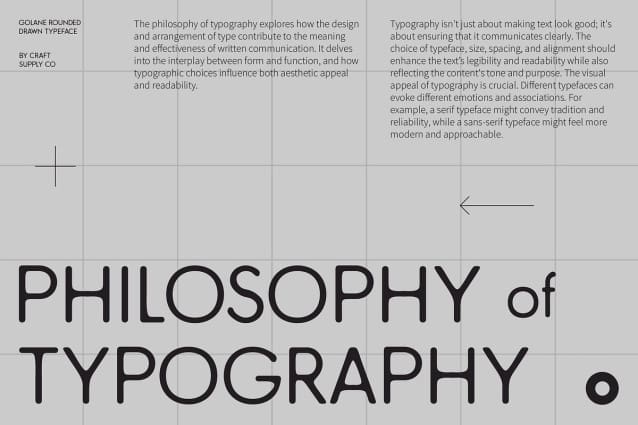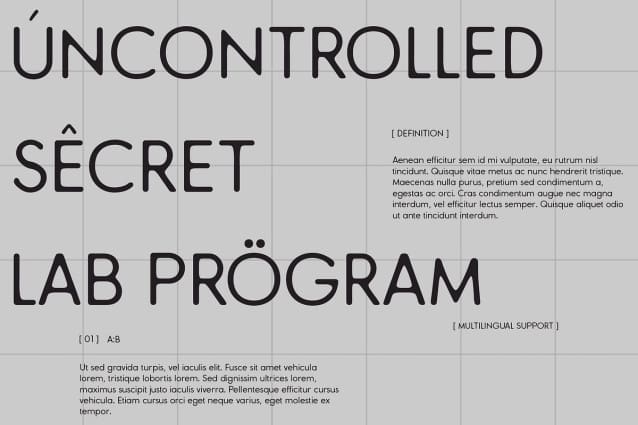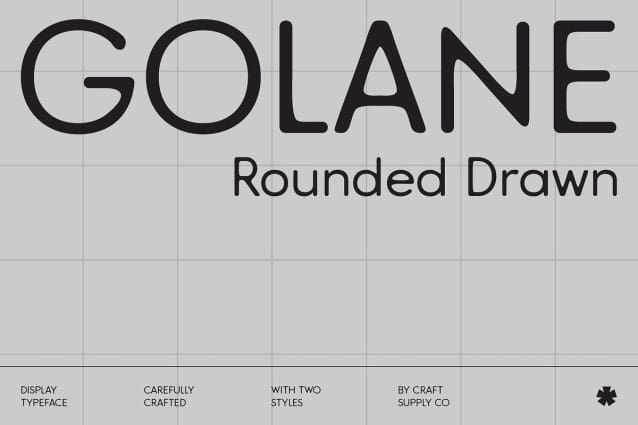
Golane Rounded Drawn Font
Golane Rounded Drawn – Modern Sans Serif with a Creative, Hand-Drawn Touch. Geometric Sans Serif with Rounded Corners.
This modern sans-serif font blends geometric shapes with smooth, rounded corners, balancing professionalism with friendliness. The geometric structure communicates stability and precision, while the rounded edges introduce a softer, more approachable feel, making it versatile for a variety of design applications.
Hand-Drawn Effect for Artistic Appeal What sets this rounded drawn font apart is its drawn effect, which adds a unique, hand-drawn texture to the otherwise sleek design. This artistic touch creates a sense of warmth and creativity, making the font stand out with its personalized, crafted look. The subtle, handcrafted lines give the font an appealing, organic feel that is perfect for designs requiring a creative edge.
Ideal for Balancing Formality with Warmth This rounded drawn font is perfect for modern designs that need to strike a balance between formal professionalism and inviting warmth. The combination of geometric structure and artistic flair makes it ideal for logos, branding, packaging, and other projects where you want to convey both reliability and creativity.